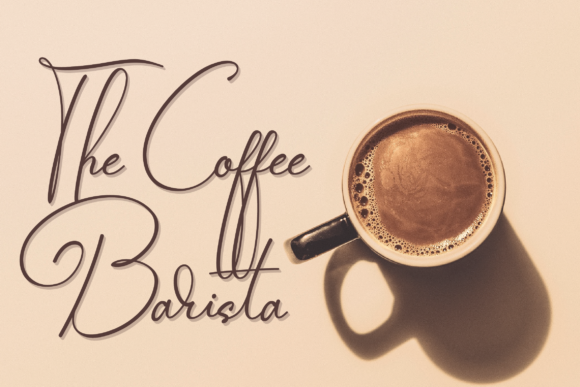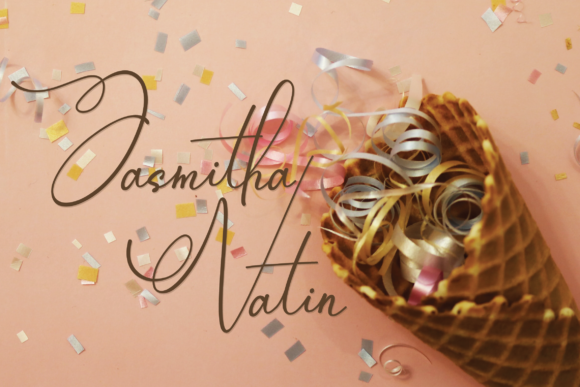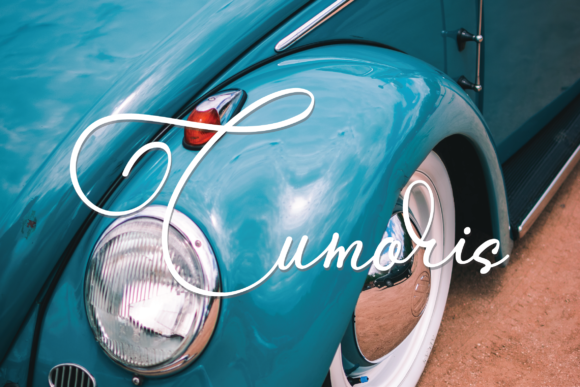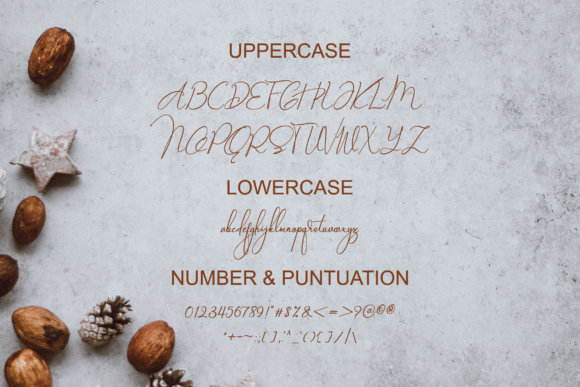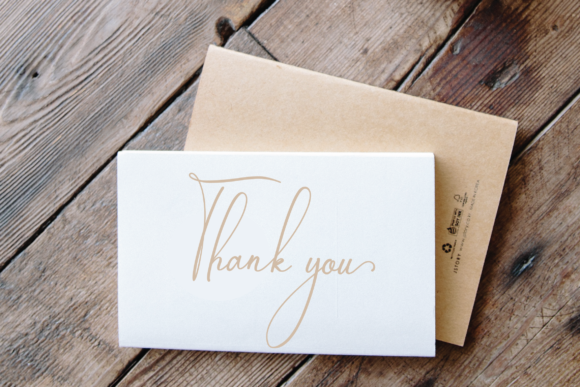
Introduction to Magic Butter Font
Have you ever stared at a blank page, struggling to find the perfect words to bring your creative project to life? We’ve all been there. But what if the right words came with the perfect font? Enter the Magic Butter Font, a delightful script font that’s sure to elevate your designs and leave a lasting impression.
Whether you’re a seasoned designer or just starting out, the Magic Butter Font is a valuable addition to your design resource toolkit. Its elegant look and feel make it perfect for a wide range of creative projects, from wedding invitations to blog headers. And the best part? It’s available for free download, complete with a transparent background for seamless integration into your designs.
With its high-quality design and versatility, the Magic Butter Font is a must-have for any designer looking to add a touch of whimsy and sophistication to their work. So why wait? Fall in love with the Magic Butter Font today and take your designs to the next level!
Key Features of Magic Butter Font
- Unique, hand-drawn style with transparent background, ideal for digital and print designs.
Honest Review: Magic Butter Font
As a designer, I’m always on the lookout for high-quality design resources to elevate my creative projects. Recently, I had the chance to try out the Magic Butter Font, and I’m excited to share my thoughts.
What works well: ✨ The Magic Butter Font has a unique, playful feel that’s perfect for projects that need a touch of whimsy. The font is highly customizable, with a range of weights and styles to choose from. Plus, it’s a free download, making it an excellent resource for designers on a budget.
What I like most is that the font has a transparent background, which makes it easy to use on a variety of design elements, from graphics to web pages. The font also comes in a range of sizes, making it versatile for use in both large and small-scale designs.
Limitations: ⚠️ While the Magic Butter Font is generally high quality, I did notice that it’s not as robust as some other fonts I’ve used in the past. The font can be a bit fragile, and may not hold up as well to scaling or resizing. Additionally, the font’s unique style may not be suitable for all types of projects.
Overall, I’d say the Magic Butter Font is a solid addition to any designer’s toolkit. While it may have some limitations, its unique style and high level of customizability make it a great resource for creative projects.
Pros:
- Unique, playful feel
Cons:
- Might not be suitable for all types of projects
- Can be fragile when scaled or resized
Tips for Getting the Most Out of Magic Butter Font
For optimal results, use Magic Butter Font with a transparent background to ensure your text stands out. Experiment with different font sizes and styles to create visually appealing designs. Additionally, pair Magic Butter Font with other high-quality fonts to add depth and variety to your creative project.
Common use cases for Magic Butter Font include creating social media graphics, designing business cards, and crafting presentations. Its versatility and high-quality design make it an excellent choice for any creative project requiring a professional touch.